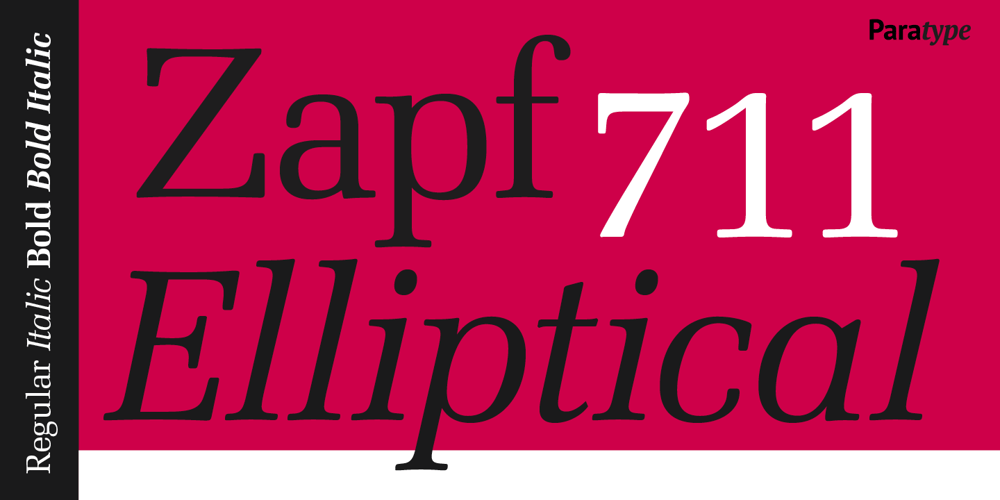
Zapf Elliptical 711
Zapf Elliptical 711 font
Zapf Elliptical 711 Font Family was designed by Hermann Zapf, Natalia Vasilyeva and published by ParaType. Zapf Elliptical 711 contains 4 styles and family package options. The Bitstream version of Melior, a twentieth century modern face commissioned by Stempel and designed by Hermann Zapf in 1952. It is based on Zapf’s thoughts about the squared-off circle known as a super-ellipse. The type was originally intended as a newspaper text face by Linotype. Hermann Zapf’s Melior exhibits a robust character through classic and objective forms. Versatile and extremely legible, it can be used for a variety of texts and point sizes. Cyrillic version was developed by Natalya Vasilyeva and licensed by Paratype in 2002.